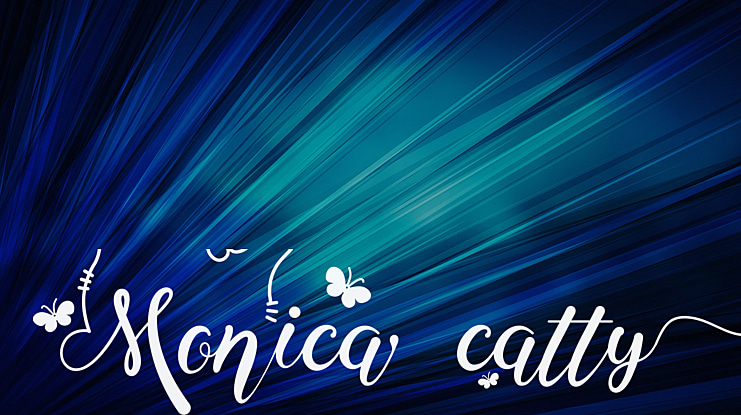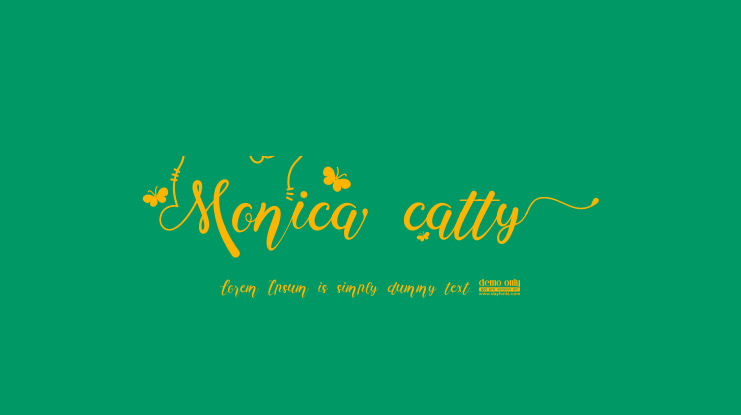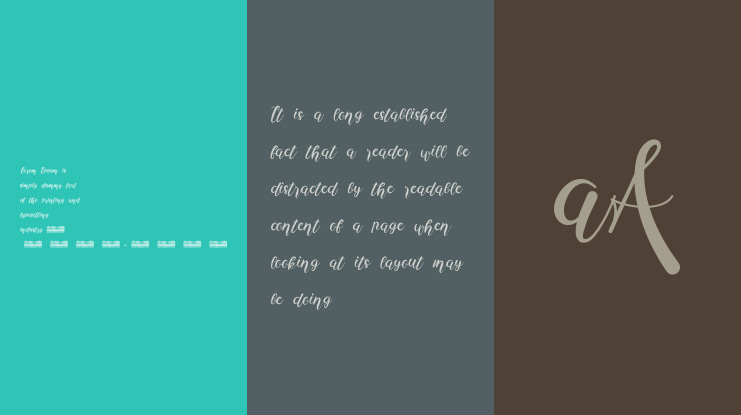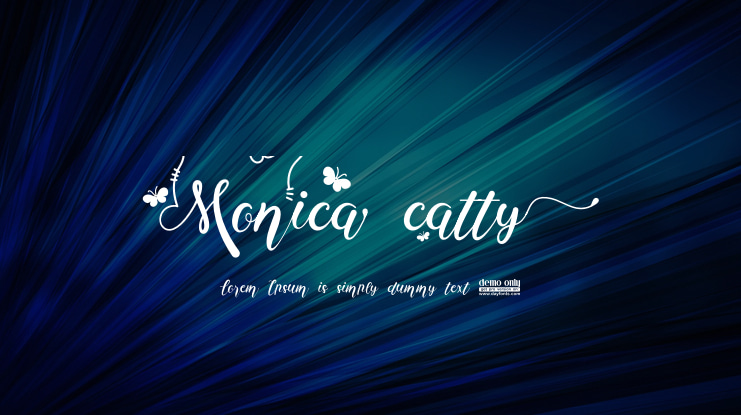
Monica Catty Font
Monica Catty Series is one of Monica Family font by Prast Art, this font is the best high quality fonts with full features open type and super easy shortcut to access a huge styles of cute and unique letters. This version has 25 features and 19 stylistic sets, all off letters and styles can be accessed with only one clik or using easy SHORTCUT. you can get unlimited beautiful styles using stylistic-set variation. for more exploring this font, please!
Monica Catty is a beautiful and refined script font. It has a classy, elegant and modern look that can be used for logos, branding, invitations, stationery, wedding designs, social media posts, and much more! Monica Hamster is PUA encoded which means you can access all of the glyphs and swashes with ease!